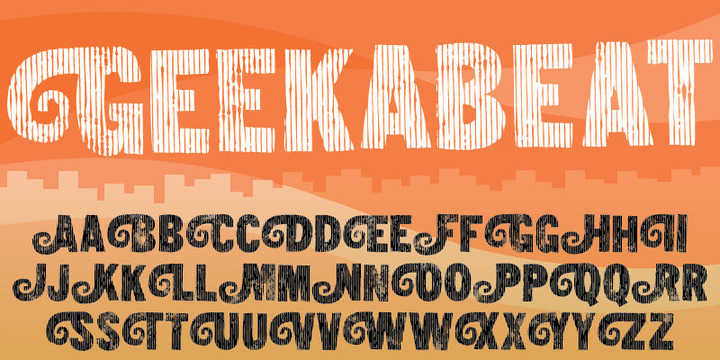
Geekabeat is my wooden lookalike grunge typeface!
All uppercase letters has got a funky swirl. Comes with different upper- and lowercase letters, alternate letters (both upper- and lowercase!) and ligatures for both double letters and double numbers, along with ligatures for most common letter-combinations - and of course it has got unique accented letters!